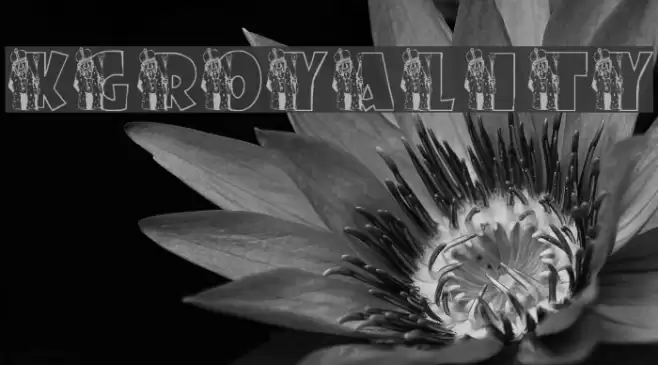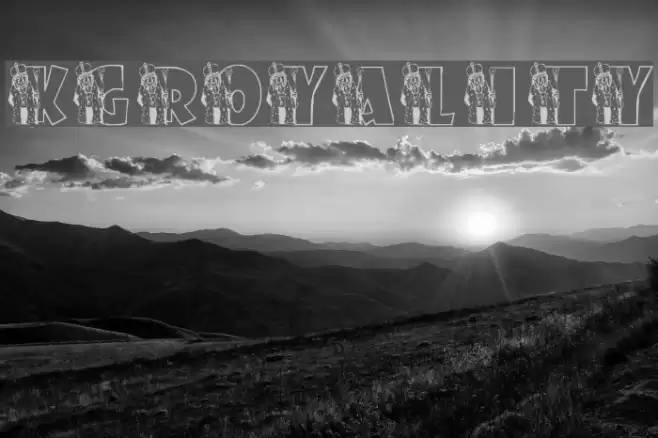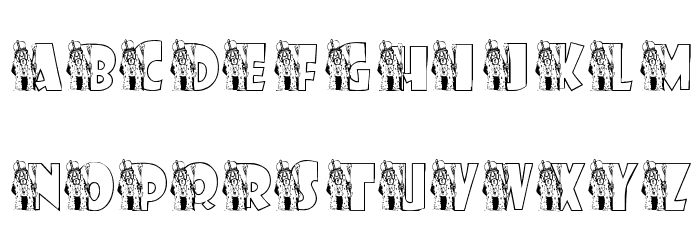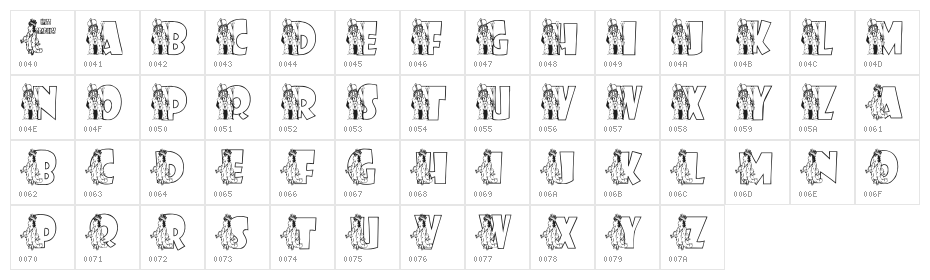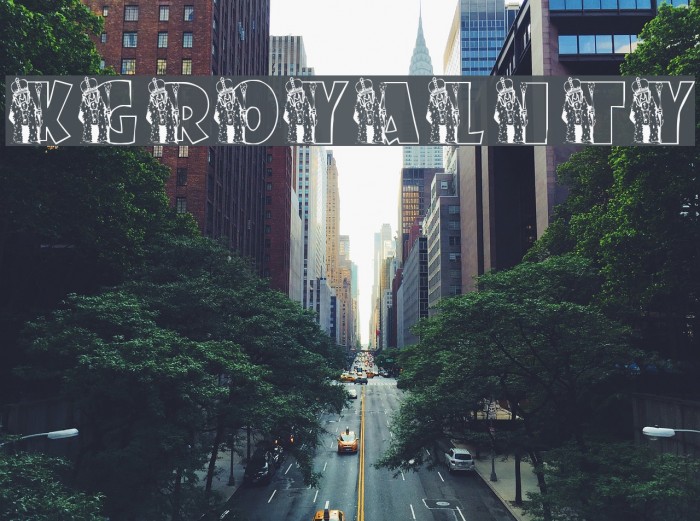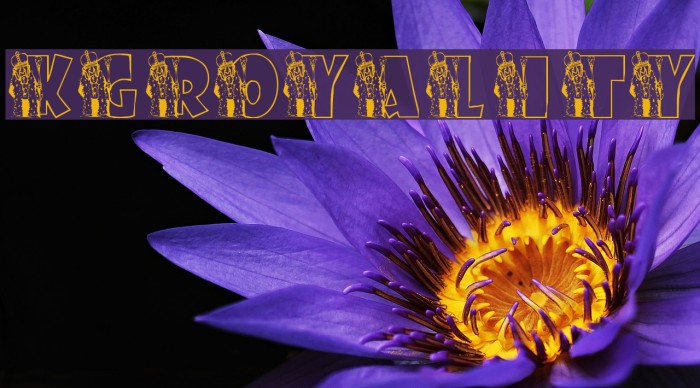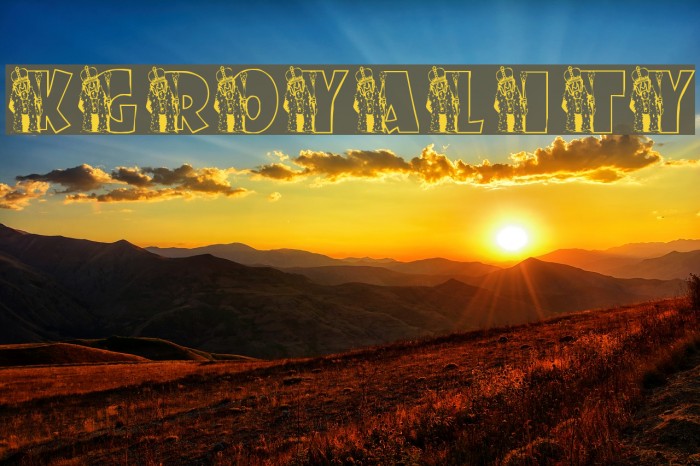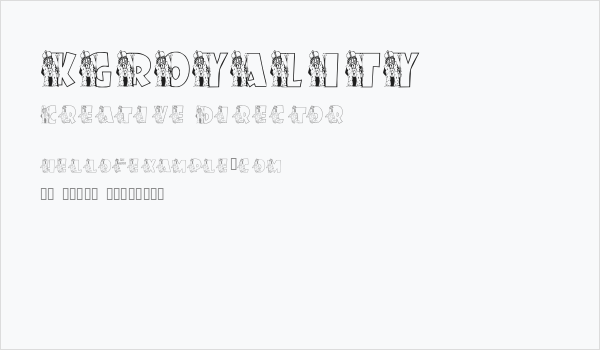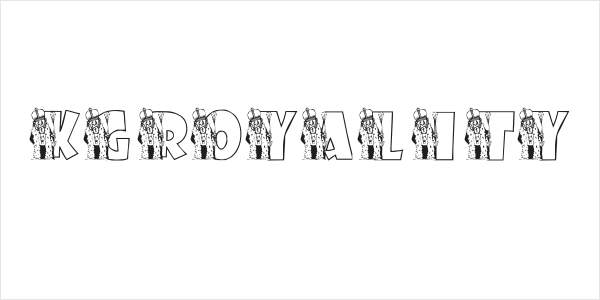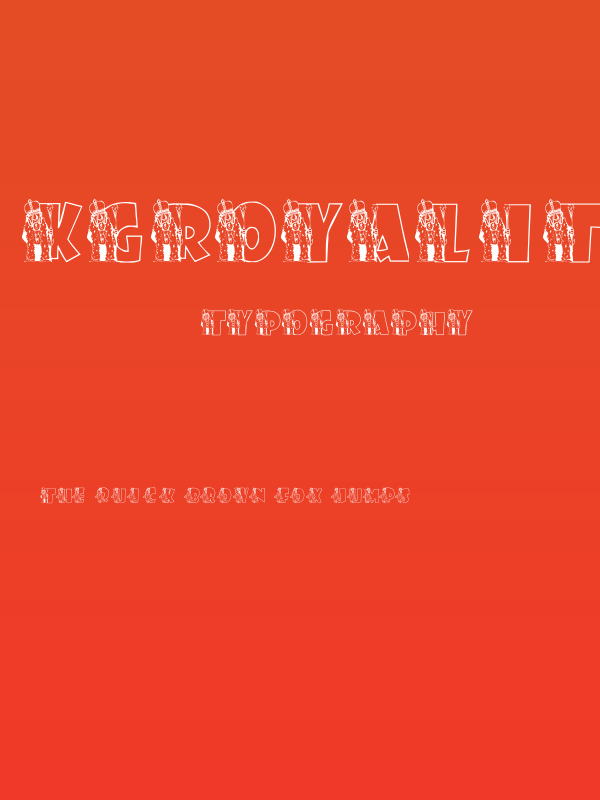
KGROYALITY Font
KGROYALITY Description
This font features a unique and playful design where each character is integrated with a whimsical illustration of a royal figure. The letters are bold and have a decorative style, with each character containing intricate details that add a sense of fun and creativity. The overall appearance is both eye-catching and artistic, making it suitable for projects that require a touch of elegance and humor. The font maintains a consistent style across all characters, ensuring a cohesive look when used in text.
A decorative font with royal-themed illustrations integrated into each letter from Uncategorized fonts.
- Proposed Projects: Ideal for children's books, playful invitations, themed event posters, and creative branding projects.